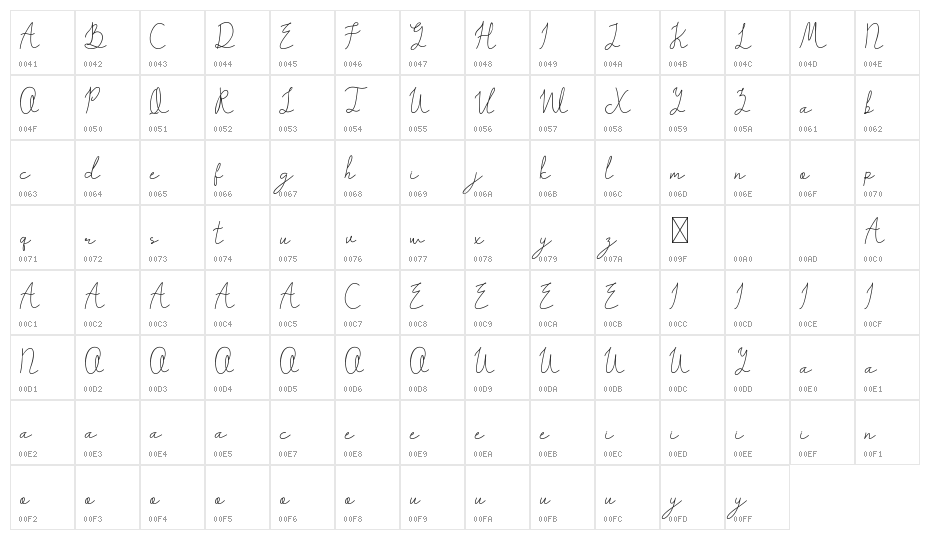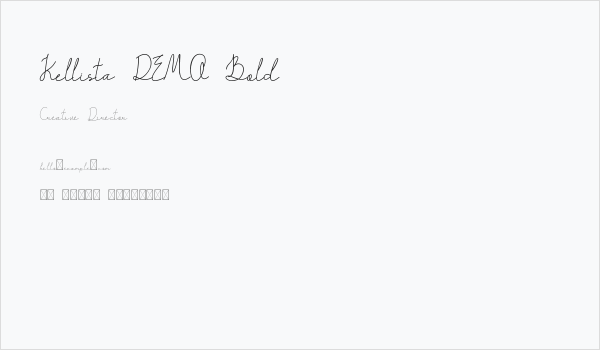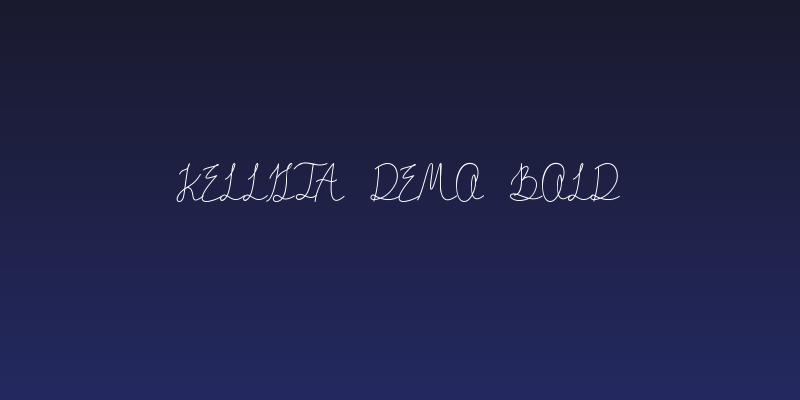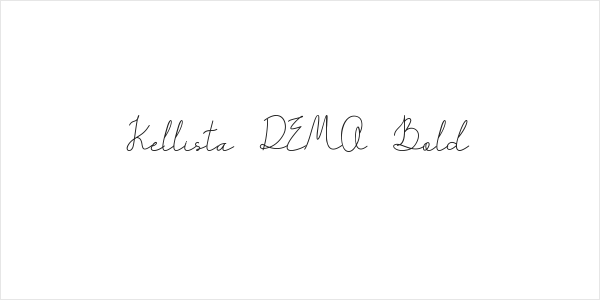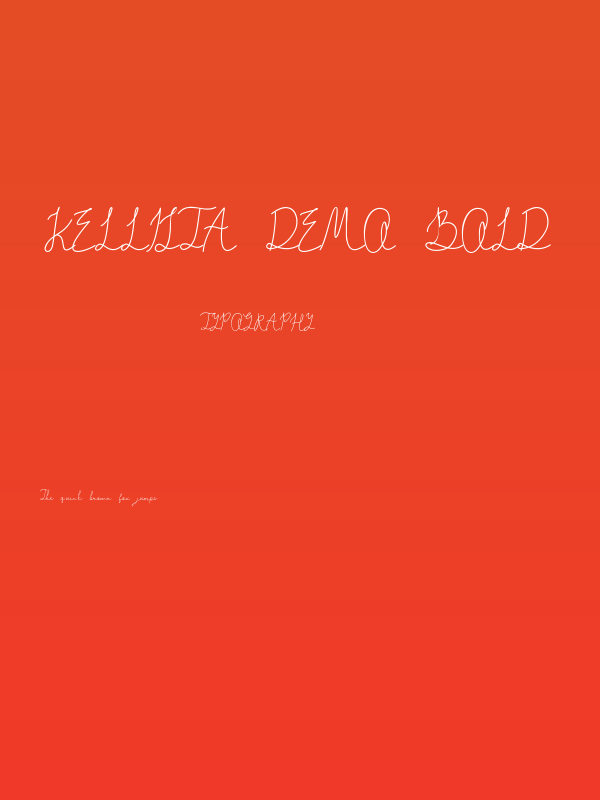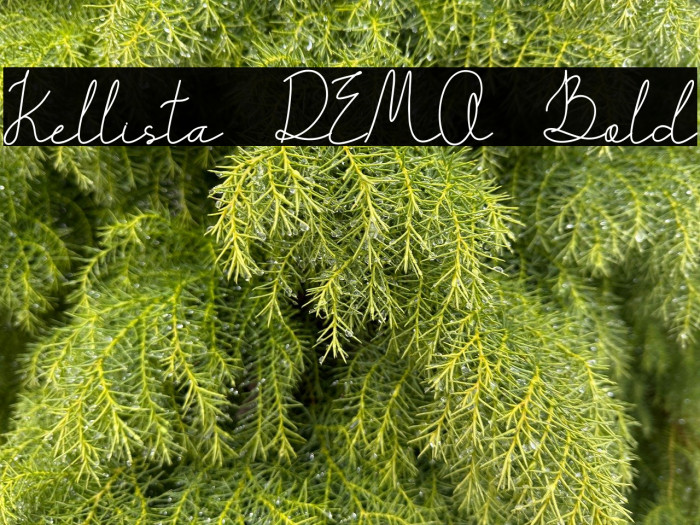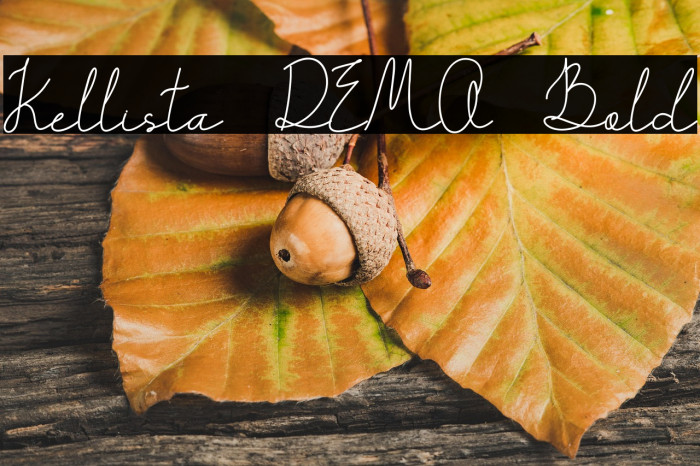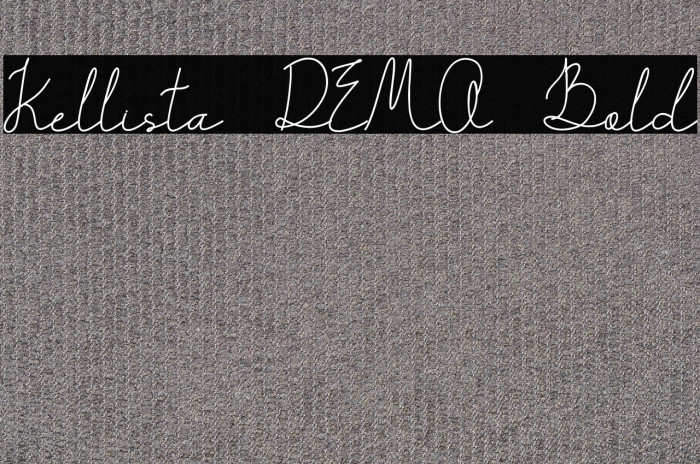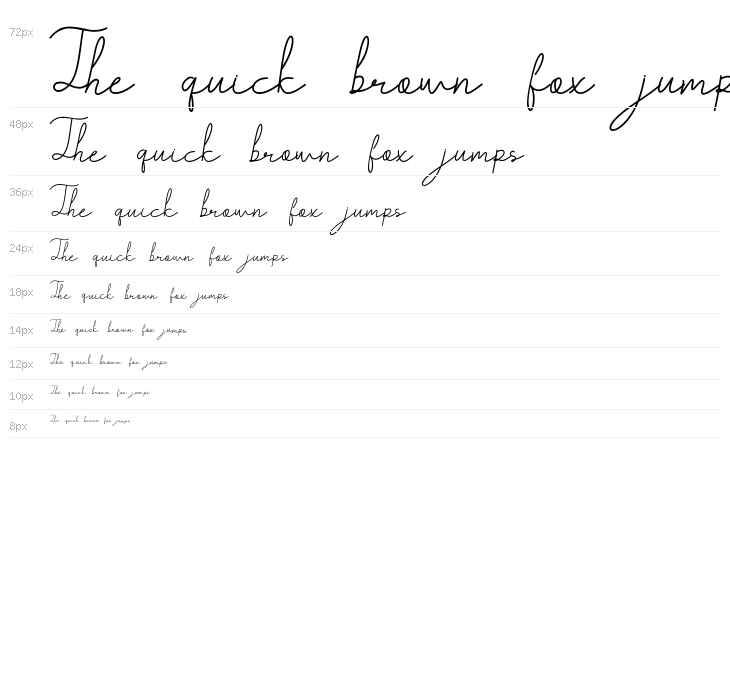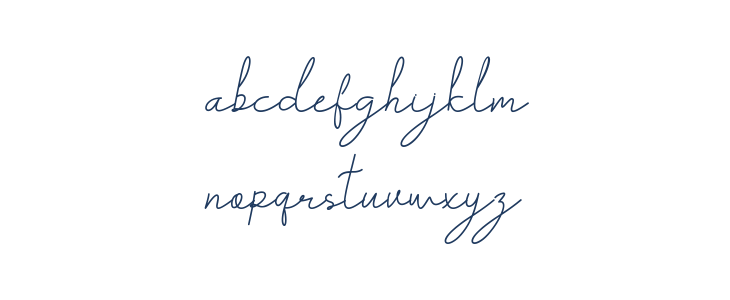
Kellista DEMO Bold Font
Kellista DEMO Bold Description
This elegant script font features a flowing, cursive style with a sophisticated and artistic flair. The characters are interconnected, creating a seamless and fluid appearance that mimics natural handwriting. The uppercase letters are slightly taller and more ornate, while the lowercase letters maintain a consistent and graceful form. The font's delicate lines and curves give it a refined and stylish look, making it suitable for formal and creative applications. Its unique design is perfect for adding a personal touch to any project.
| Proposed Projects | Ideal for wedding invitations, greeting cards, branding, and elegant logo designs. |